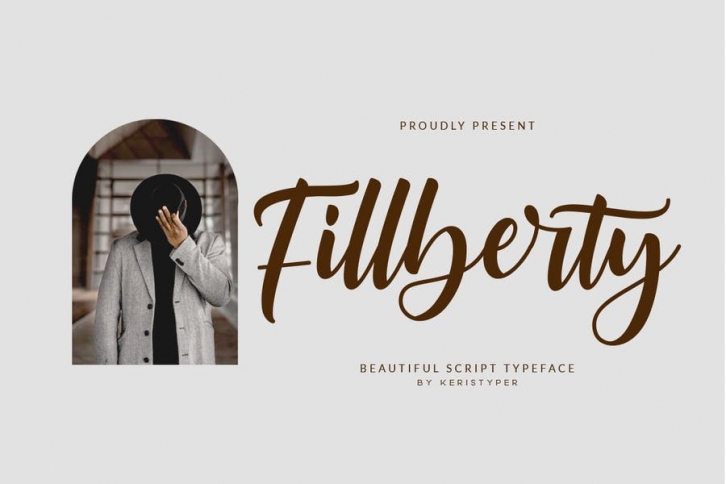
Introducing Fillberty a retro script font with a nostalgic touch and vibe. Whatever the topic, this font will be a wonderful asset to your font library, as it has the potential to enhance any creation. And it is an incredibly distinct, delicate, and timeless handwritten font. This font is good for logo design, Social media, Movie Titles, Books Titles, short text even a long text letter, and good for your secondary text font with sans or serif. Make a stunning work with Roselites font.